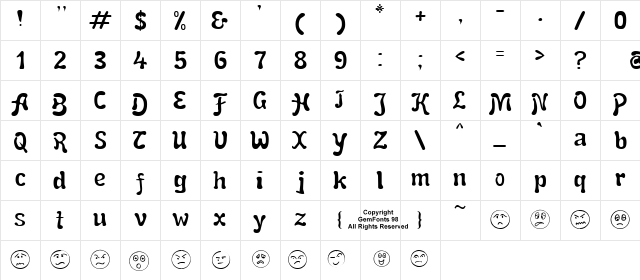
Snail n Ink Regular Free Font
Snail  n  Ink Regular
Design Context for Snail n Ink
Snail n Ink is a composed and adaptable typeface that performs quietly and consistently across a wide range of design contexts.